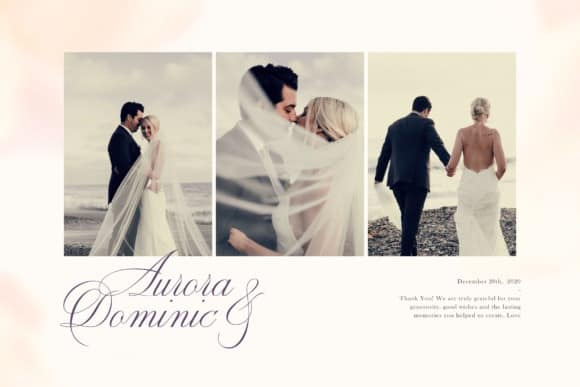
Enica Calligraphy Font
Hello guys… Introducing Enica Calligraphy Font – handcrafted script font with a handwritten style make this font looks elegant, natural, stylish. It’s designed and shared by typealiens. Enica is an exquisite handwritten font, masterfully designed to become a true favorite. It maintains its classy calligraphic influences while feeling contemporary and fresh. Fall in love with Enica and bring your projects to the highest levels!